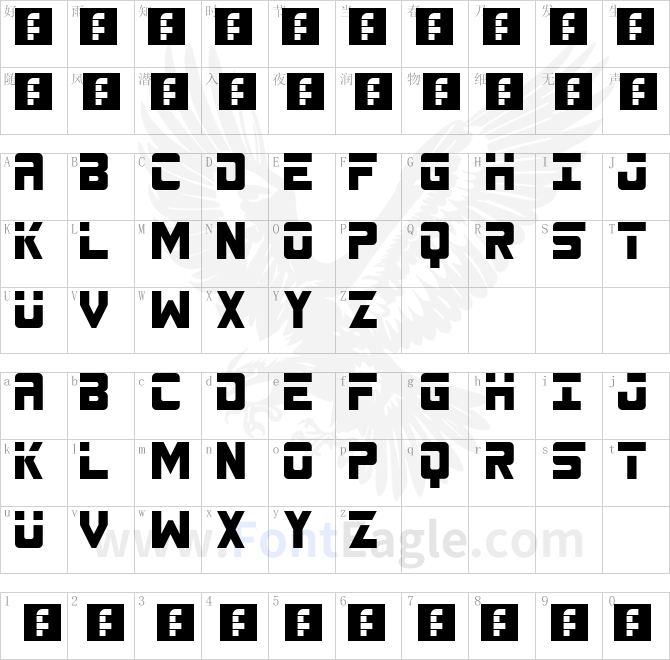
- Font name:SPACEBAR
- Font Subfamily ID:FontStruct SPACEBAR
- Font Full Name:SPACEBAR Regular
- Postscript:SPACEBAR
“SPACEBAR” is based on “Timeline” by “GeronimoFonts” (http://fontstruct.com/fontstructors/geronimofonts) - Font Ext:.ttf